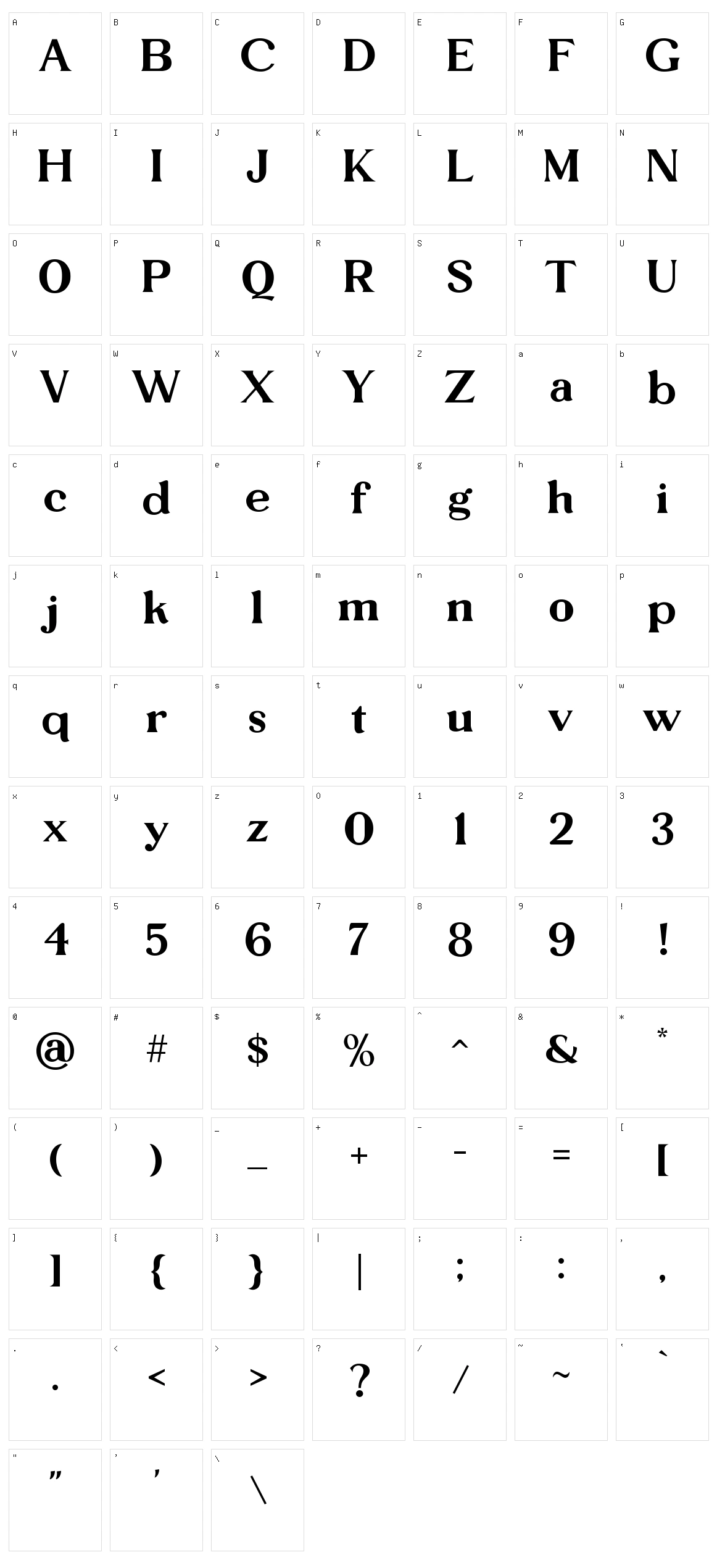
The free font Yasmen is carefully designed by Font Kingdom, showcasing a thoughtful balance of creativity and usability and falls under the Serif font style. When you download the ZIP file, it contains only 56.34 KB of font files, making it lightweight and quick to download. Please review the license details below to understand permitted usage and distribution rights. If license information is not available, we recommend using this font for personal projects only or contacting the author directly for commercial usage permissions.